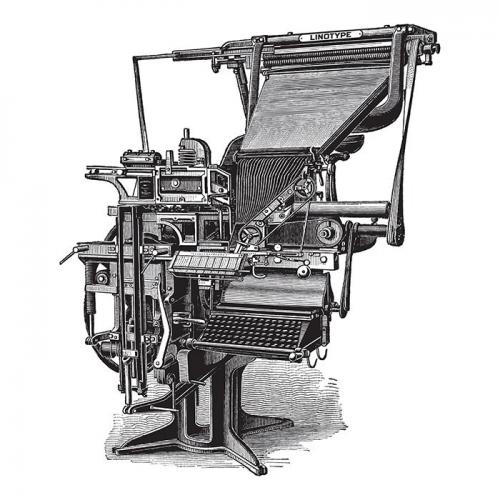
Hot metal typesetting refers to machine-based typesetting technologies, where molten type metal is injected into a mold that has the shape of one or more glyphs. Examples of such machines are the Linotype and the Monotype.
Dutch: machinezetten
French: composition chaude
German: Maschinensatz
Italian: composizione (meccanica) a caldo
Spanish: Composición en caliente